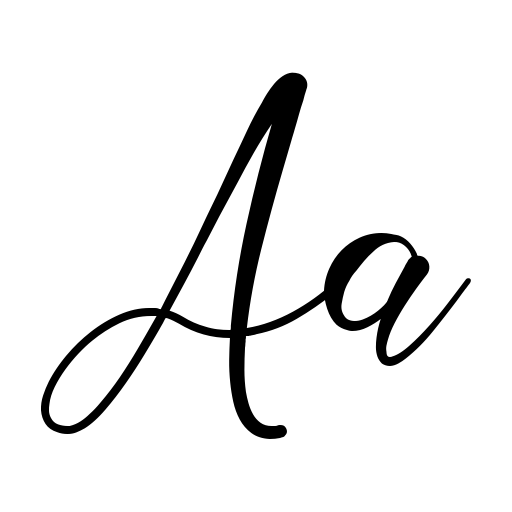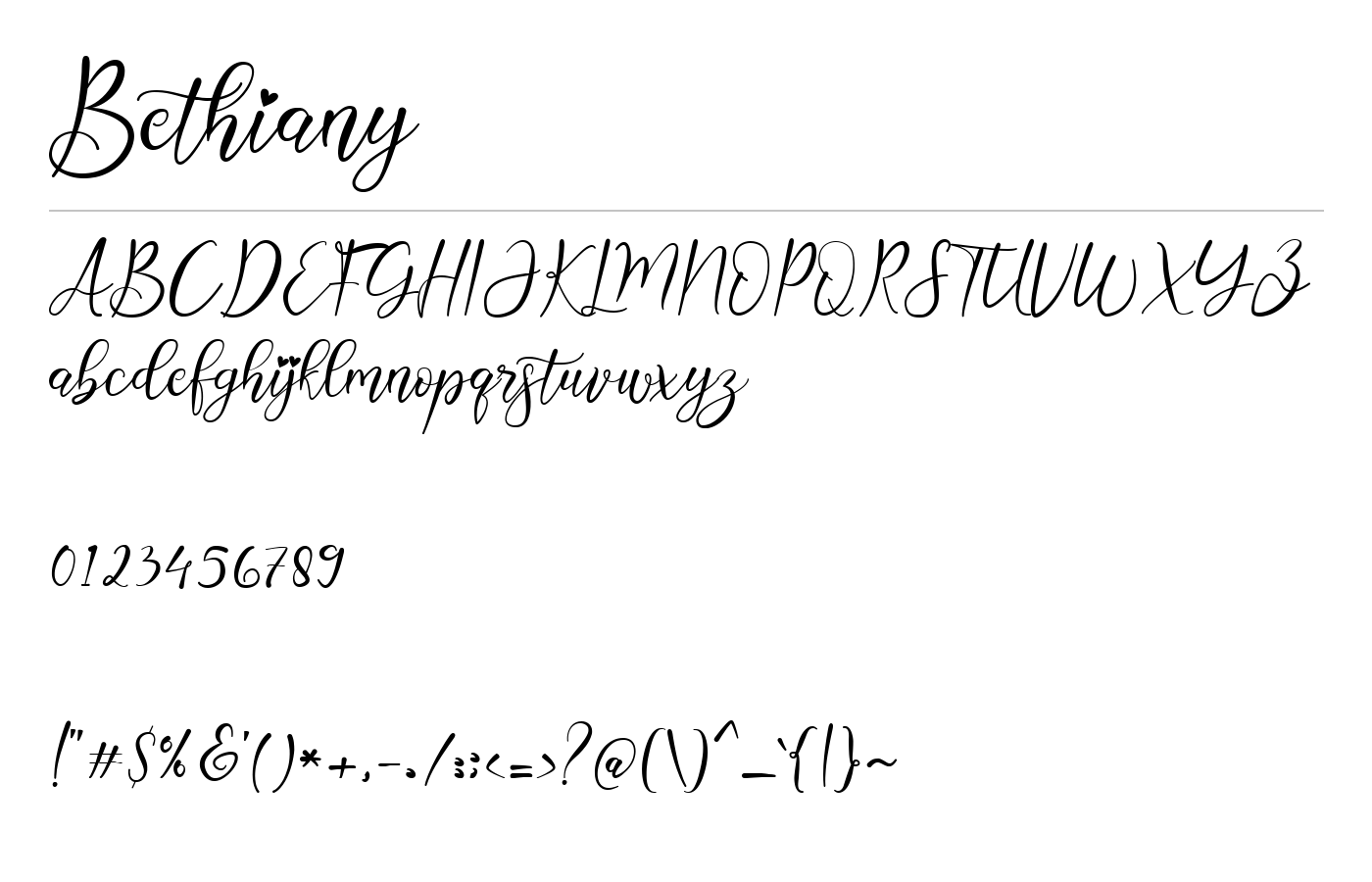
Bethiany is an elegant, modern script font characterized by its flowing, handwritten style with delicate strokes and charming heart-shaped dots. It features a light weight with smooth, graceful curves, making it perfect for feminine branding, wedding invitations, and stylish packaging. This font's playful yet refined personality adds a personal touch to logos, headlines, and decorative text where warmth and sophistication are desired.
Bethiany Font
About Bethiany Font